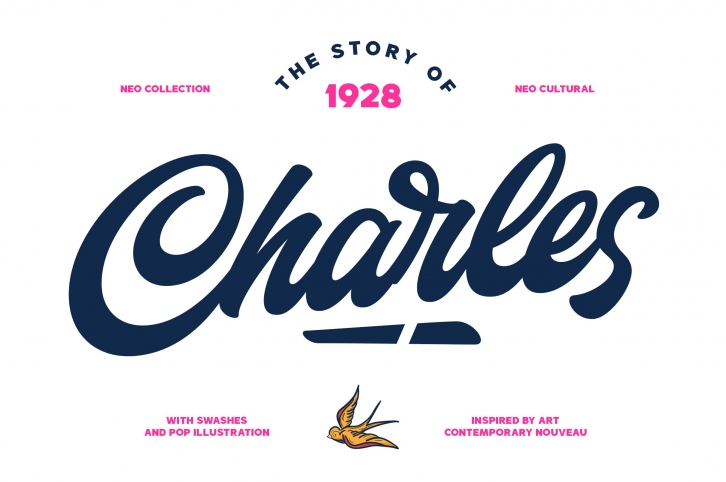
Say hi to Charles
Charles inspired by the Nouveau art concept, combine with contemporary, pop and 70's design. With a stylish script to create a modern classy style, such as logotype and lettering. Simply amazing font come with a lot of glyphs, and opentype features, ligatures, stylistic alternat, swash, and also stylistic set (ss01-ss09 to mix and match the design.
This font is perfect for branding, labels, logo, badges, apparel design, etc. I also made a design to mix and match pairs of letters to fit your design.
Charles Illustration with png files is so very easy to use. You can get 20 vintage illustration with pop colors, and absolutely you can use it for a lot of things!